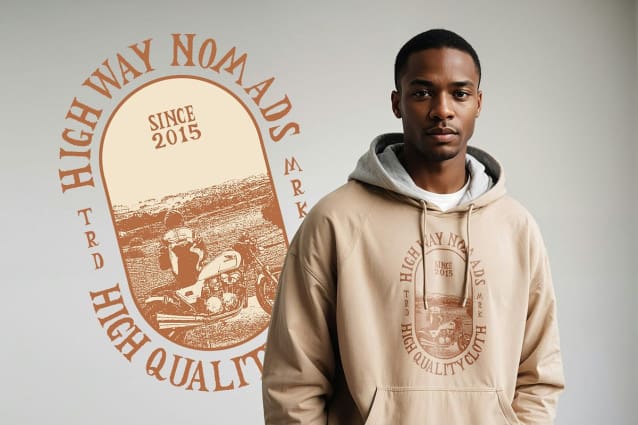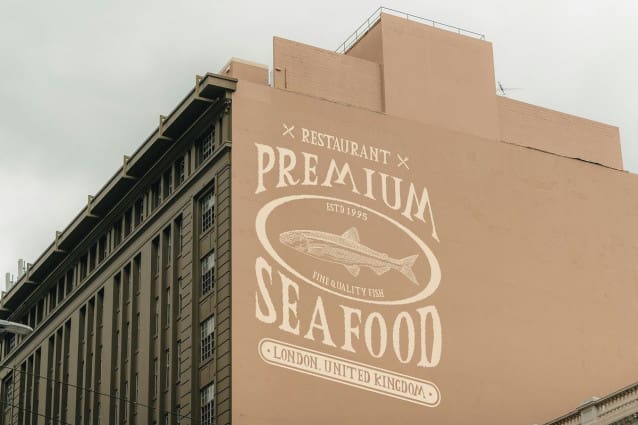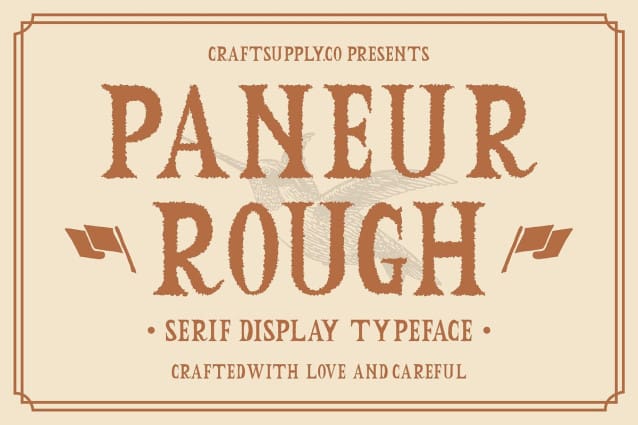
Paneur Rough Font
Paneur Rough Font is a serif font that breaks away from tradition with its playful and cheerful letterforms. Featuring a unique rough texture, this font exudes a bold, dynamic quality that brings an energetic vibe to any design. The informal lines give Paneur Rough a relaxed and creative edge, making it perfect for projects that aim to feel approachable, fresh, and visually engaging.
Perfect for Eye-Catching and Memorable Designs The textured, rough quality of Paneur Rough enhances its visual impact, ensuring designs stand out while feeling warm and expressive. Whether used in event posters, branding materials, or editorial spreads, this font brings a lively and distinctive atmosphere, ideal for capturing attention with a sense of bold creativity.
Versatile and Suitable for Dynamic Expressions Paneur Rough shines in applications that require a touch of character and creativity. Its unique blend of playful serif elements and bold texture makes it a go-to choice for designers looking to create an inviting, unforgettable impression. Paneur Rough’s charm lies in its ability to bring energy and authenticity to any project, making it well-suited for branding, marketing materials, and modern editorial design.